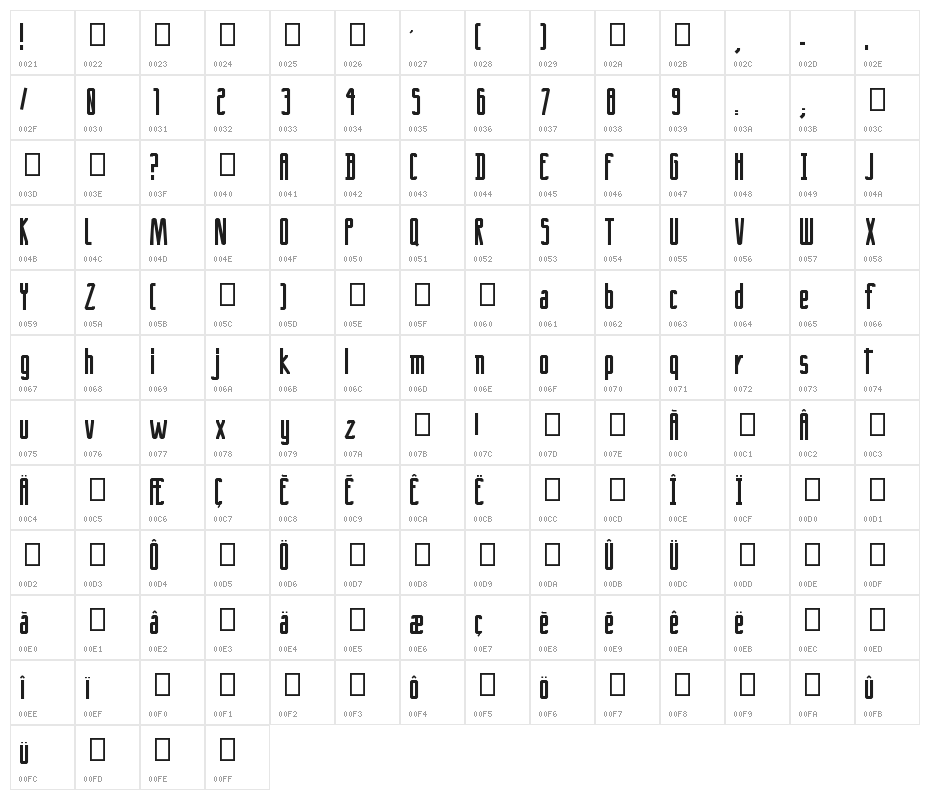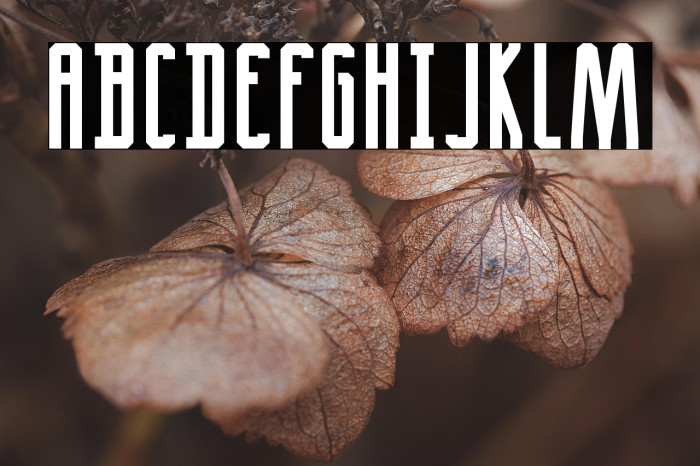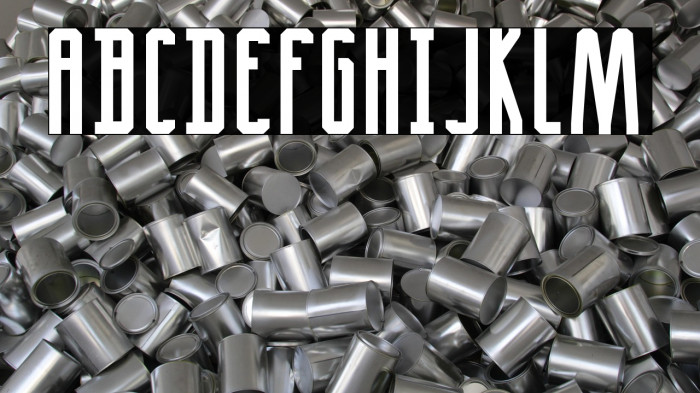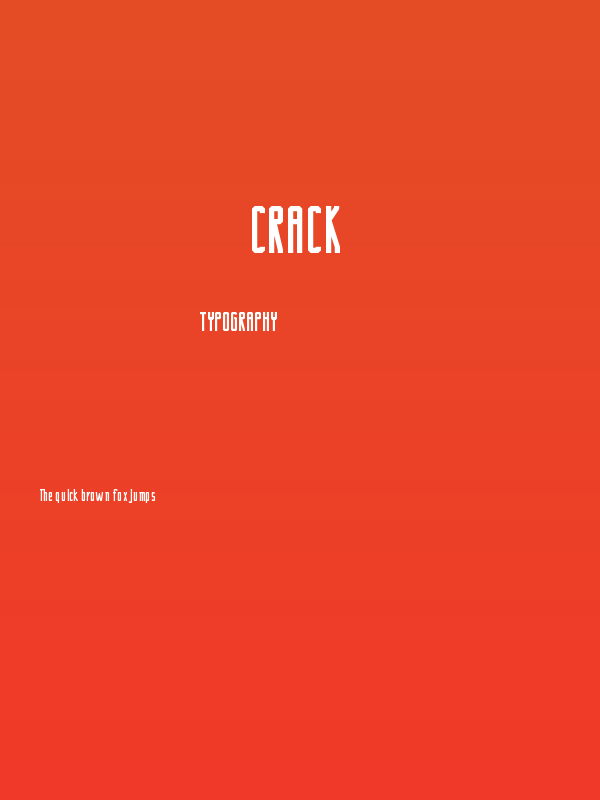
Crack Font
Crack Description
This font features a bold and condensed style with a modern, geometric appearance. The uppercase letters are tall and narrow, with sharp angles and clean lines that give it a futuristic feel. The lowercase letters maintain the same condensed structure, ensuring consistency across the typeface. Numbers are similarly styled, with a uniform height and width that complements the alphabetic characters. The special characters are designed to match the overall aesthetic, providing a cohesive look. The font's strong presence makes it ideal for attention-grabbing designs.